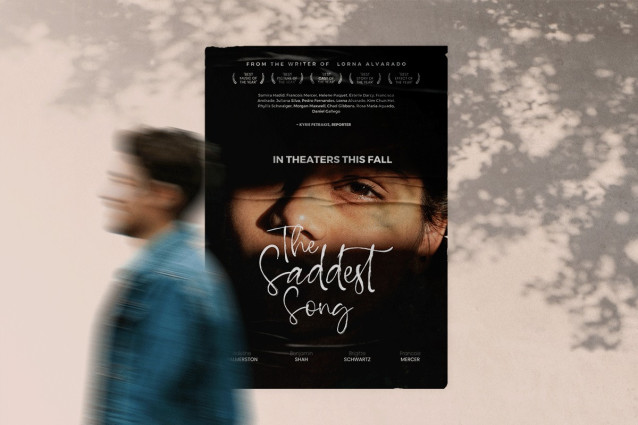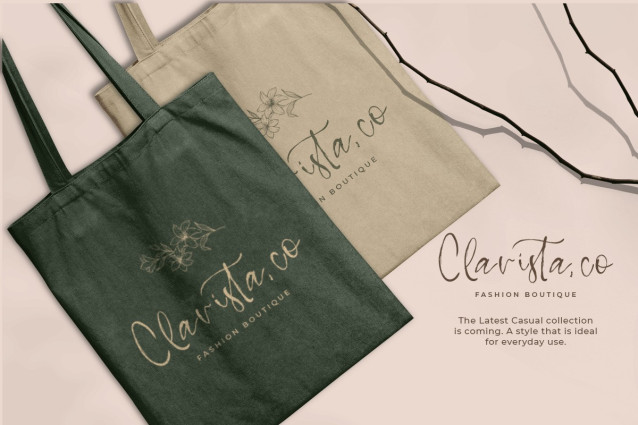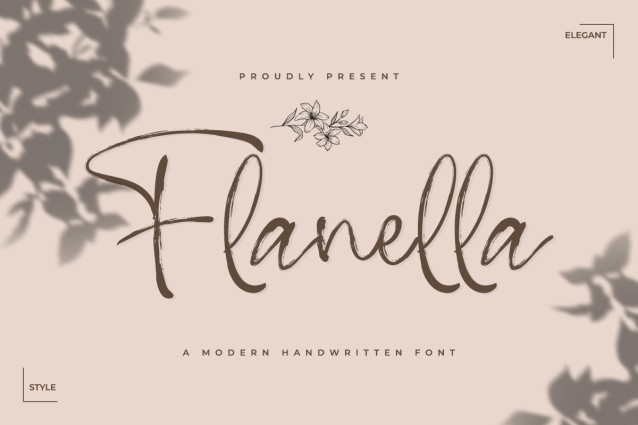
Flanella Brush Font
Flanella Handwritten Brush Font is here as one of the best brush fonts for you to choose from. This font is the right choice if you are looking for digital fonts or print fonts. You can see how the characteristics of this elegant and charismatic font are very adorable to the eyes of anyone who reads it. Flanella Handwritten Brush Font is one of those aesthetic fonts formed from light brush strokes. This font is created with beautiful curves in some of the letters. On closer inspection, this font looks like a shadow that has a bold edge at the end of the font shape. Flanella Handwritten Brush Font characteristics above are suitable for formal events that affirm beauty. This font is the best wedding font that can use for invitations, souvenirs, and writing on decorations. Flanella Handwritten Brush Font is also one of the most suitable fonts to use for product brands that answer women’s needs, such as fashion and beauty products, as well as shop signs. These fonts can be digital fonts or print fonts. Farresta font is an eligible font. Flanella Handwritten Brush Font was designed with simplicity, elegance, and a strong aesthetic in everything that goes with it. This impression arises from how beautiful this font looks and its characteristics. Our font brush collection is compatible to use as Figma fonts, Canva fonts, Freepik Fonts, and Adobe Fonts. They also work as Windows Fonts and Apple Fonts. For your social media needs, you can use and install fonts in our brush typography collection to use as Instagram Fonts, Facebook Fonts, and Twitter Fonts.